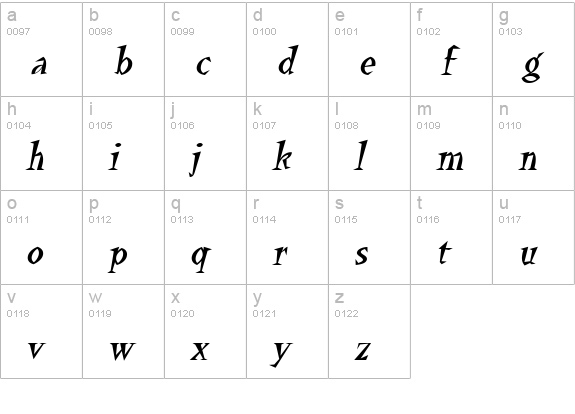
Yucatan Italic is a distinctive, italic variant in the Yucatan typeface family \xE2\x80\x94 well suited to design and typography projects.
Yucatan Italic font is a stunning and elegant typeface that exudes sophistication and charm. Its sleek, slanted design adds a touch of modernity to any project, making it perfect for use in branding, advertising, and editorial design. The flowing curves and graceful lines of Yucatan Italic font create a sense of movement and energy, capturing the viewer's attention and leaving a lasting impression. But what truly sets Yucatan Italic font apart is the fact that it is completely free to download. Yes, you heard that right! This exquisite font is available for free at FontsMarket.com, allowing you to add a touch of class to your designs without breaking the bank. So why wait? Download Yucatan Italic font today and elevate your projects to new heights of style and sophistication.